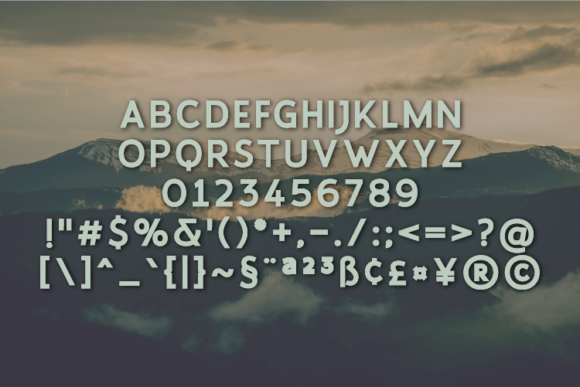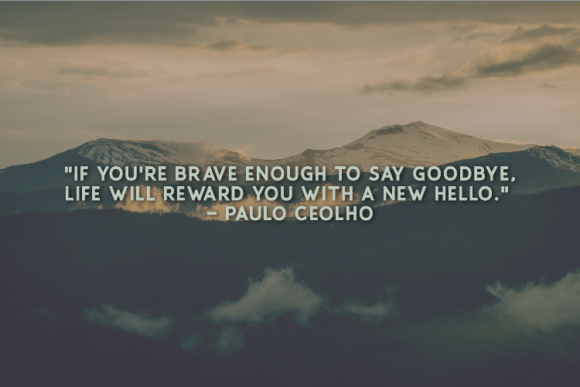
Introducing Grofield Font: The Ultimate Sans Serif for Modern Design
In the world of typography, fonts play a crucial role in conveying messages, evoking emotions, and creating visual identities. For designers, crafters, and creative enthusiasts, finding the perfect font can be a daunting task. However, if you’re looking for a clean, slim, and simple sans serif font, look no further than Grofield Font. In this article, we’ll explore the features, benefits, and uses of Grofield Font, and why it’s becoming a favorite among designers and crafters.
What is Grofield Font?
Grofield Font is a modern sans serif font designed to provide a clean and minimalist aesthetic. Its slim and simple design makes it perfect for a wide range of applications, from product packaging and branding projects to magazine covers, social media graphics, and wedding designs. The font’s versatility and legibility make it an excellent choice for designers and crafters looking to add a touch of sophistication to their work.
Key Features of Grofield Font
- Clean and Minimalist Design: Grofield Font boasts a clean and minimalist design, making it perfect for modern designs that require a simple yet elegant touch.
- Slim and Simple: The font’s slim and simple design ensures that it remains legible even at small sizes, making it ideal for use on various platforms.
- Sans Serif: As a sans serif font, Grofield Font provides a modern and sleek look that’s perfect for designs that require a clean and contemporary feel.
- Highly Legible: The font’s clear and concise design ensures that it’s highly legible, making it perfect for use in a variety of applications.
Uses of Grofield Font
Grofield Font is an incredibly versatile font that can be used in a wide range of applications, including:
- Product Packaging: Add a touch of sophistication to your product packaging with Grofield Font.
- Branding Projects: Use Grofield Font to create a consistent visual identity for your brand.
- Magazine Covers: Create eye-catching magazine covers with Grofield Font.
- Social Media Graphics: Use Grofield Font to create engaging social media graphics that stand out.
- Wedding Designs: Add a touch of elegance to your wedding designs with Grofield Font.
Benefits of Using Grofield Font
Using Grofield Font offers several benefits, including:
- Improved Legibility: Grofield Font’s clear and concise design ensures that your message is conveyed clearly.
- Increased Versatility: The font’s versatility makes it perfect for use in a wide range of applications.
- Enhanced Visual Appeal: Grofield Font’s clean and minimalist design adds a touch of sophistication to your designs.
Tips for Using Grofield Font
To get the most out of Grofield Font, here are some tips to keep in mind:
- Use it with a Background Image: Use Grofield Font with a background image to create a visually appealing design.
- Pair it with Other Fonts: Pair Grofield Font with other fonts to create a unique and visually appealing design.
- Use it for Headings and Titles: Use Grofield Font for headings and titles to add a touch of sophistication to your design.